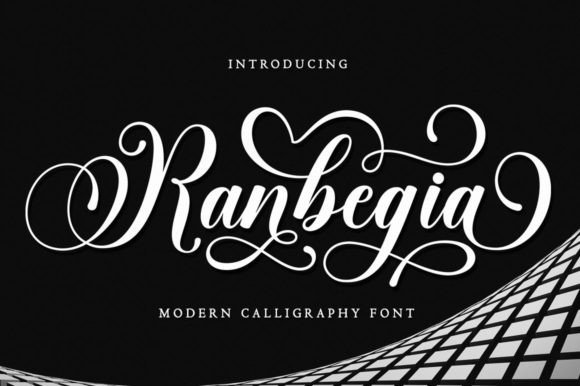
Behold Ranbegia Script, an enchanting script font brimming with refined elegance and timeless grace. Crafted by the skilled hands of kartinytype, this exquisite typeface exudes a touch of modern flair while retaining its classic charm.
Ranbegia Script's captivating allure lies in its meticulously designed characters, each stroke imbued with a delicate balance of flow and definition. The result is a font that is both pleasing to the eye and highly legible, ensuring your designs command attention without compromising clarity.
This font's versatility extends far beyond mere aesthetics. Its inherent femininity and sensuality render it an ideal choice for projects seeking to evoke a sense of romance, charm, and sophistication. Whether you're designing wedding invitations, fashion catalogs, or elegant branding materials, Ranbegia Script effortlessly adds a touch of luxury and refinement.
But what truly sets Ranbegia Script apart is its remarkable adaptability. Its classic style shines through in formal settings, effortlessly elevating invitations, restaurant menus, and magazine layouts. Yet, it also possesses a playful charm that enlivens greeting cards, personal stationery, and social media posts.
In a world saturated with visual noise, Ranbegia Script stands out as a beacon of clarity and sophistication. Its clean lines and simple structure make it a joy to read, ensuring your messages are conveyed with impact and clarity.